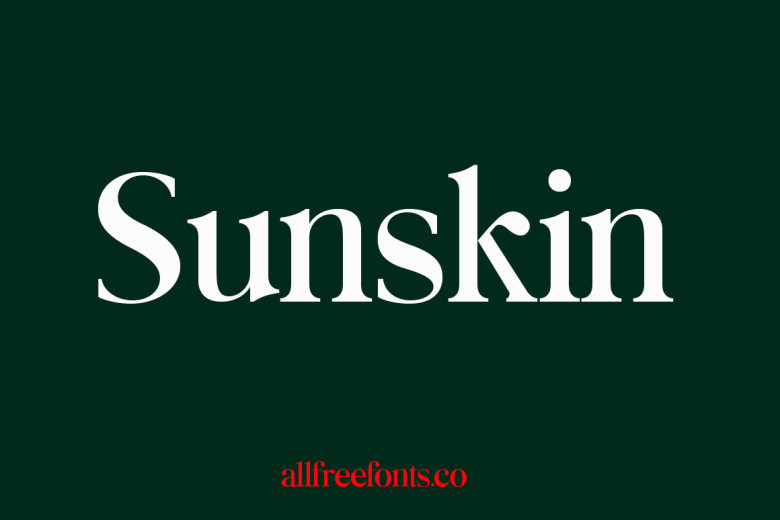
Sunskin Font
Sunskin fonts are an innovative font created specifically by Sunskin himself. Sunskin fonts can be used for many things such as posters, social media updates, branding materials and logotypes.
Sunskin Sans Serif Font